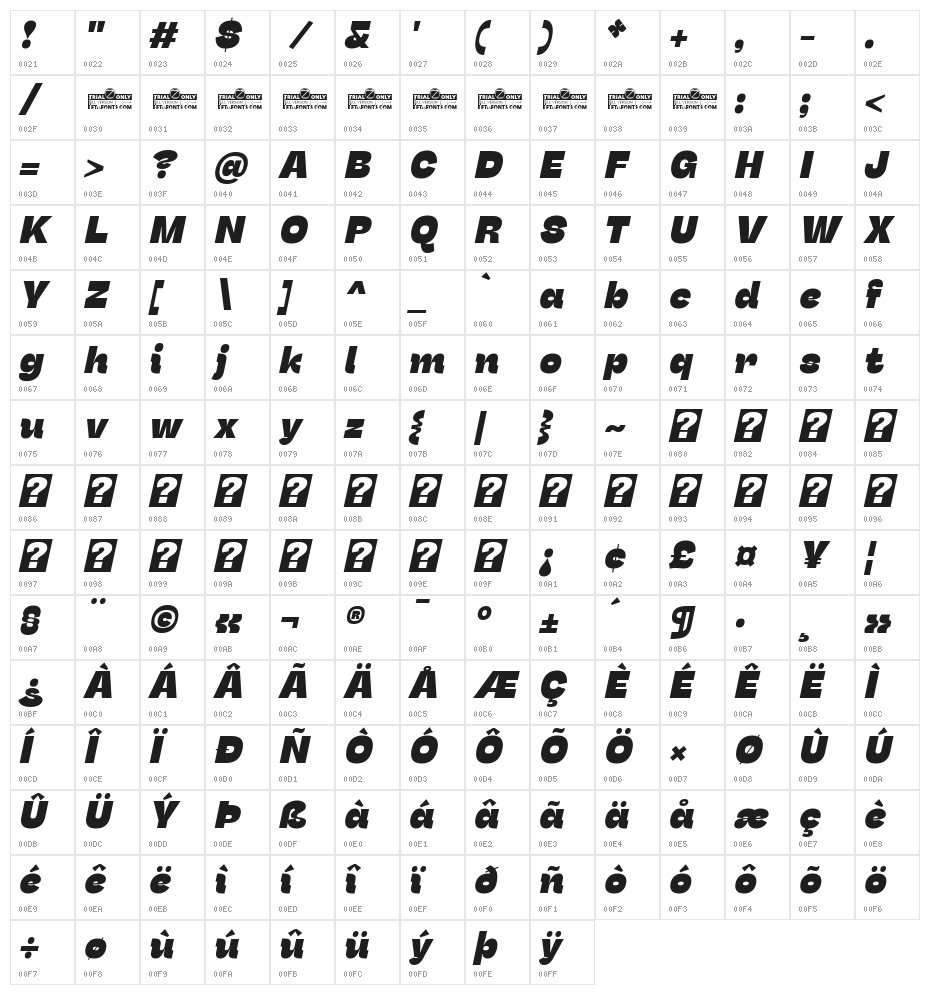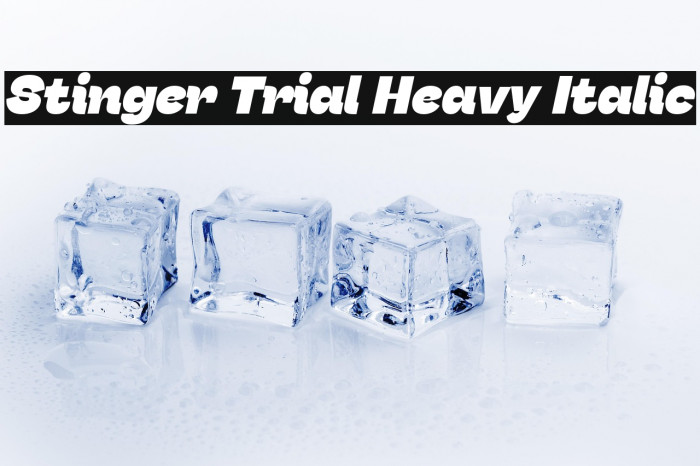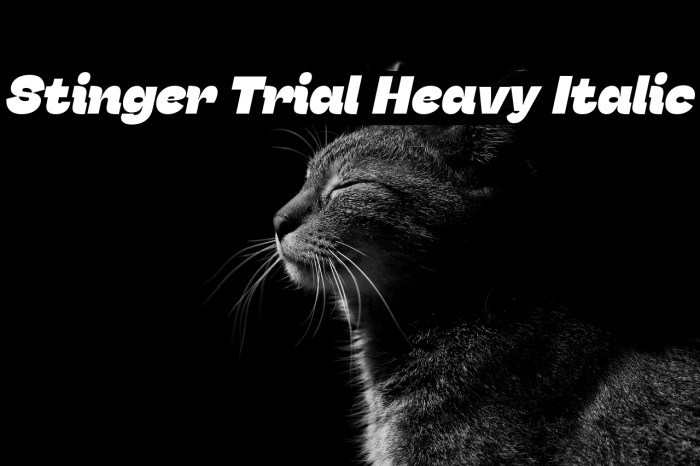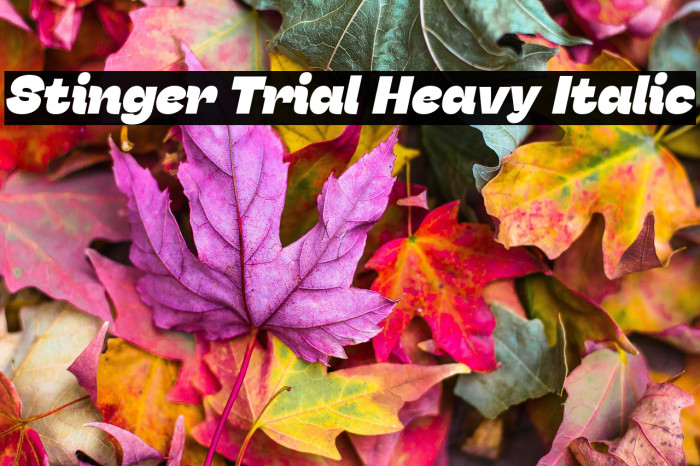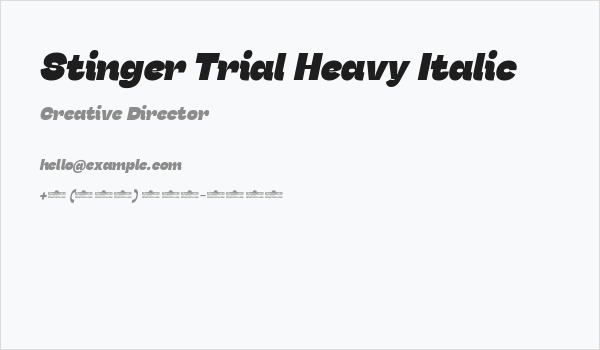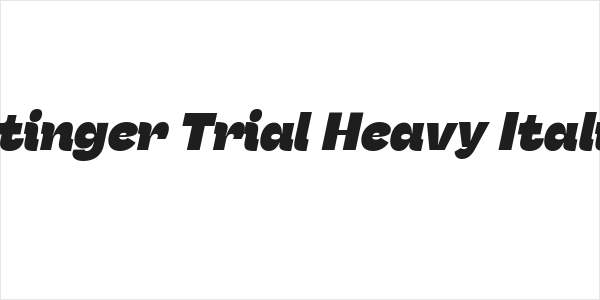
Stinger Trial Heavy Italic Font
Stinger Trial Heavy Italic Description
This font features a bold and dynamic style with a heavy italic slant, giving it a strong and assertive presence. The characters are thick and robust, with a slight curvature that adds a sense of movement and energy. The uppercase and lowercase letters maintain a consistent weight, providing a cohesive look across the alphabet. The numerals and special characters are equally bold, ensuring readability and impact. This font is ideal for making a statement, with its striking appearance and modern flair.
| Proposed Projects | Ideal for branding, advertising, headlines, and any project requiring a strong visual impact. |